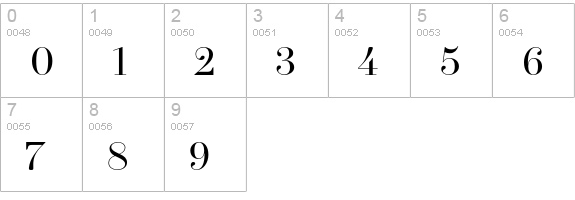
Introducing NewParis Headline font, a modern and elegant typeface that exudes sophistication and style. With its sleek lines and sharp edges, this font is perfect for creating eye-catching headlines and titles that demand attention. The NewParis Headline font is versatile and can be used for a wide range of design projects, from branding materials to editorial layouts. Best of all, this stunning font is completely free to download at FontsMarket.com. Don't miss out on the opportunity to add this beautiful typeface to your font collection today. Download NewParis Headline font now and elevate your designs to the next level!